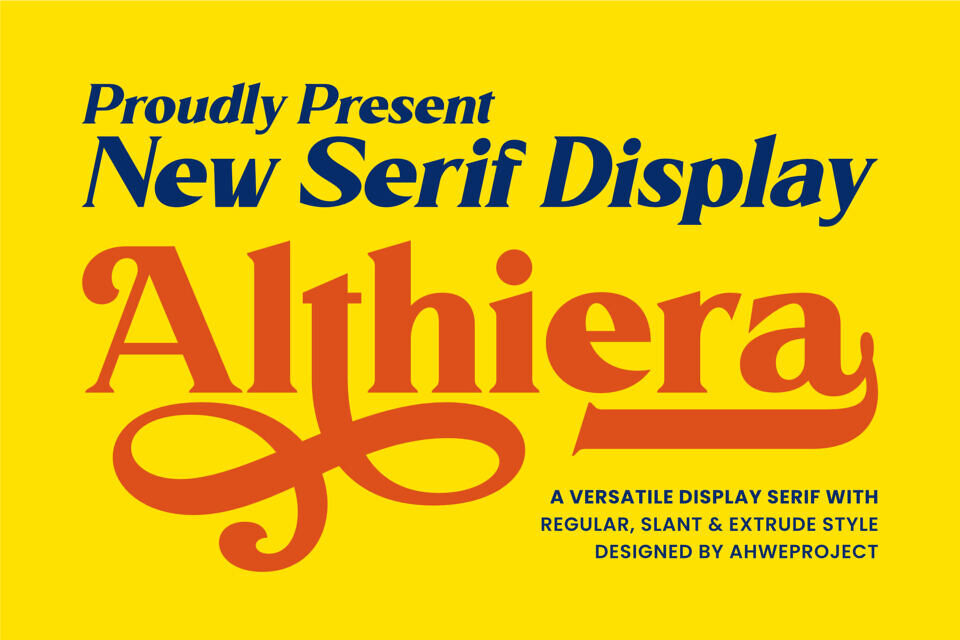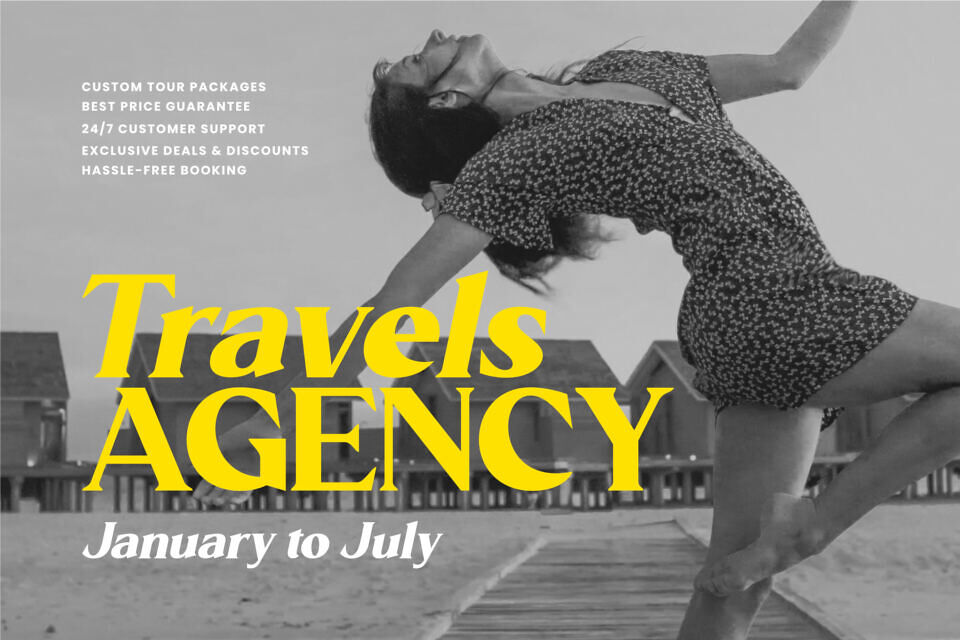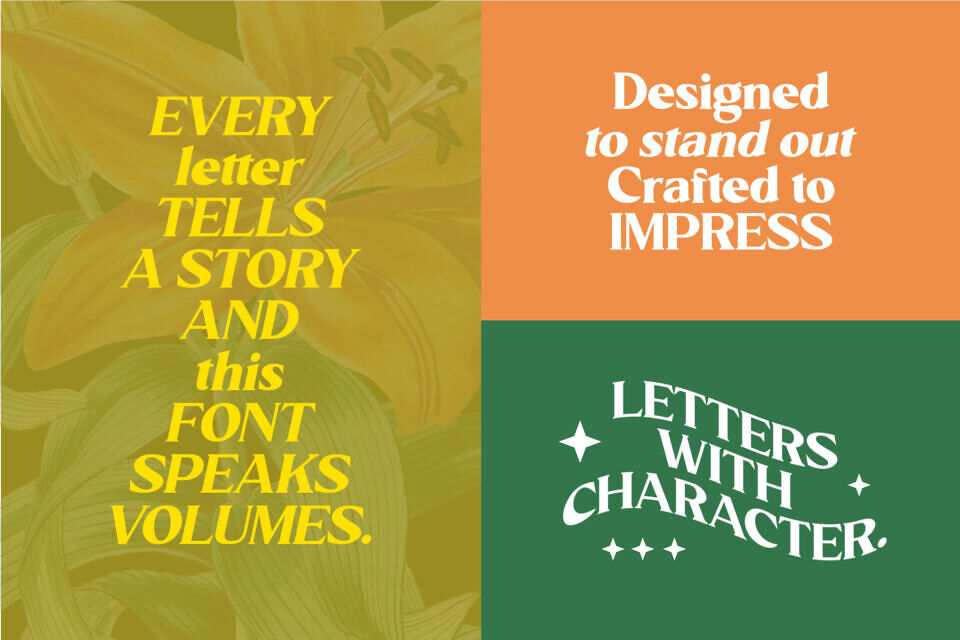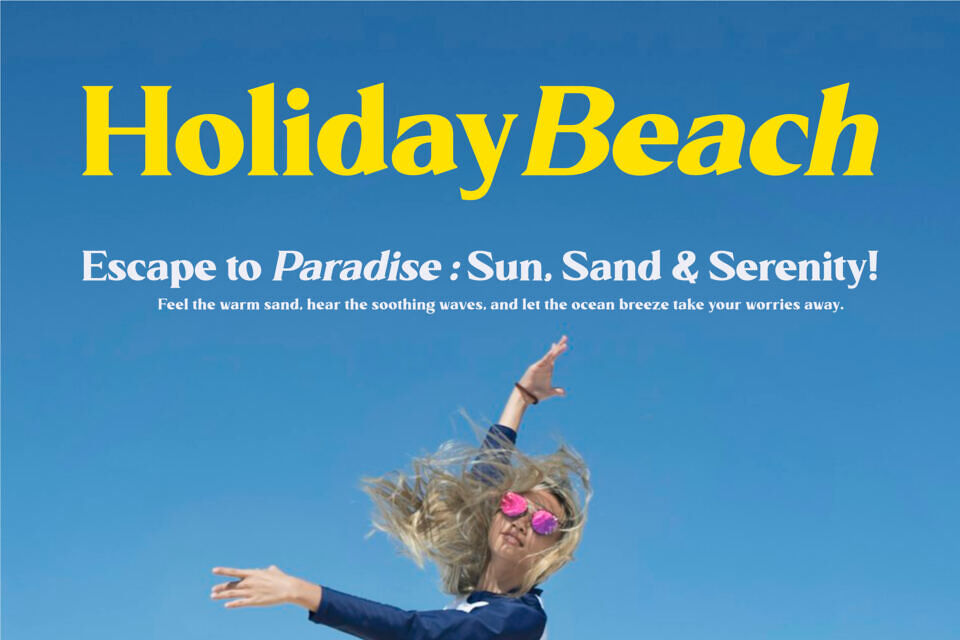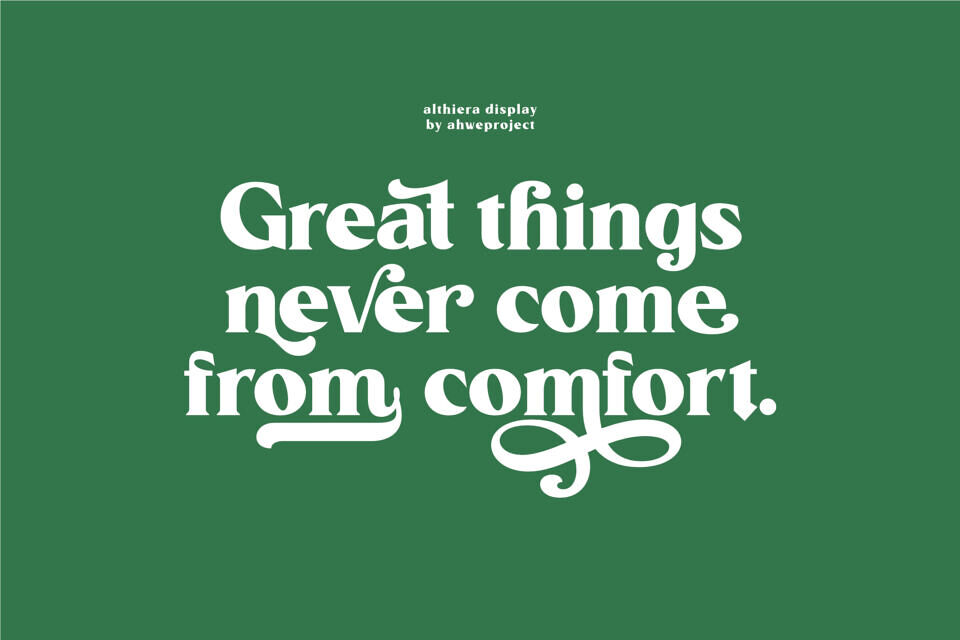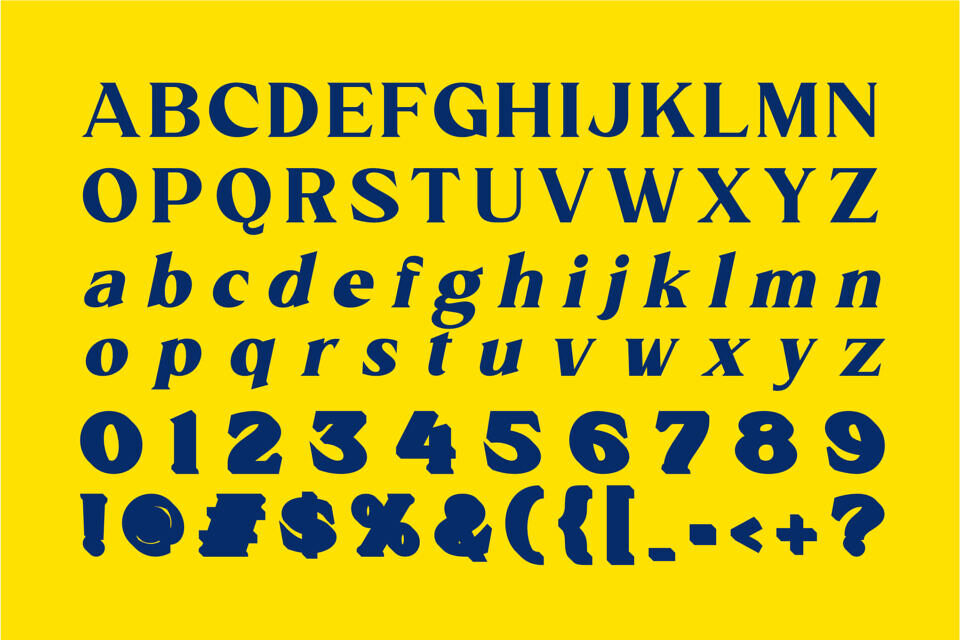
Althiera is a captivating serif display font designed to make a statement. Perfectly crafted with strong, bold strokes and elegant curves, this font is ideal for anyone looking to create eye-catching headlines, branding projects, logos, and editorial designs.
With its clean lines and distinctive style, Althiera offers multiple variations, including Regular, Slant, and Extrude, giving you the flexibility to experiment and elevate your designs. Whether you’re aiming for a vintage look, modern elegance, or creative flair, Althiera is your go-to choice for maximum impact.